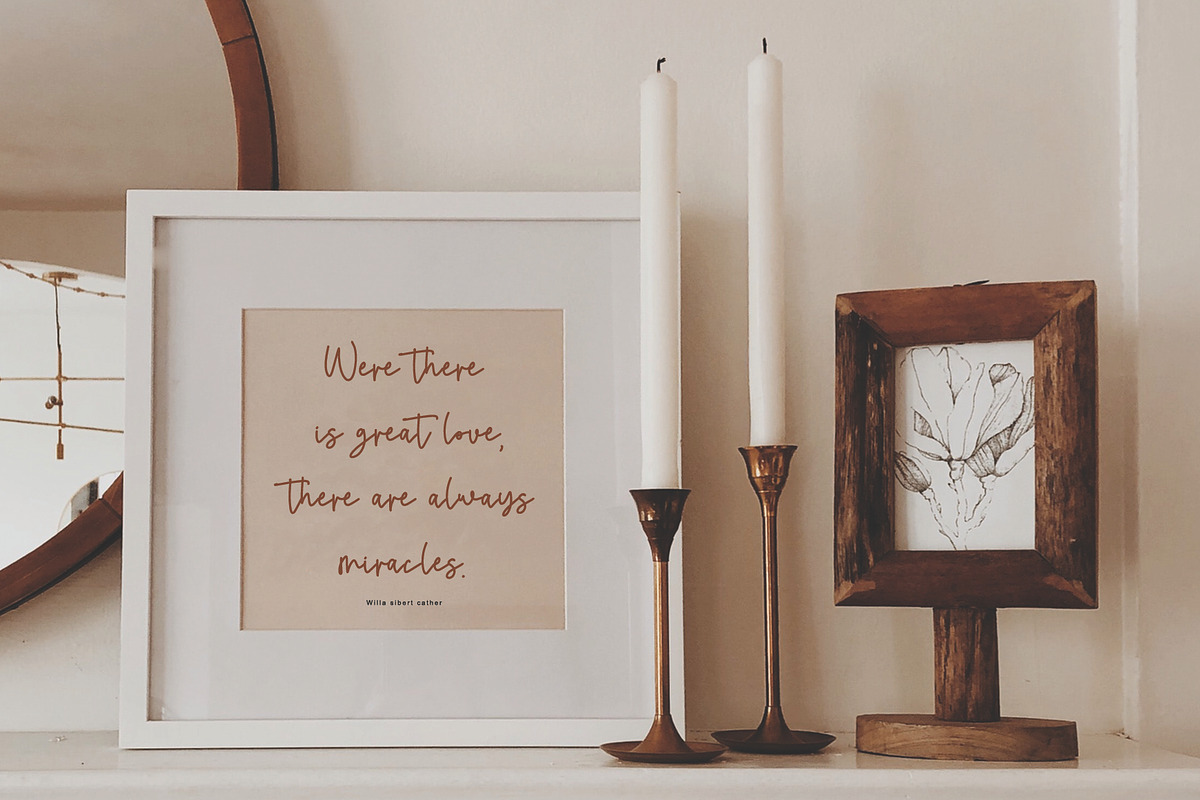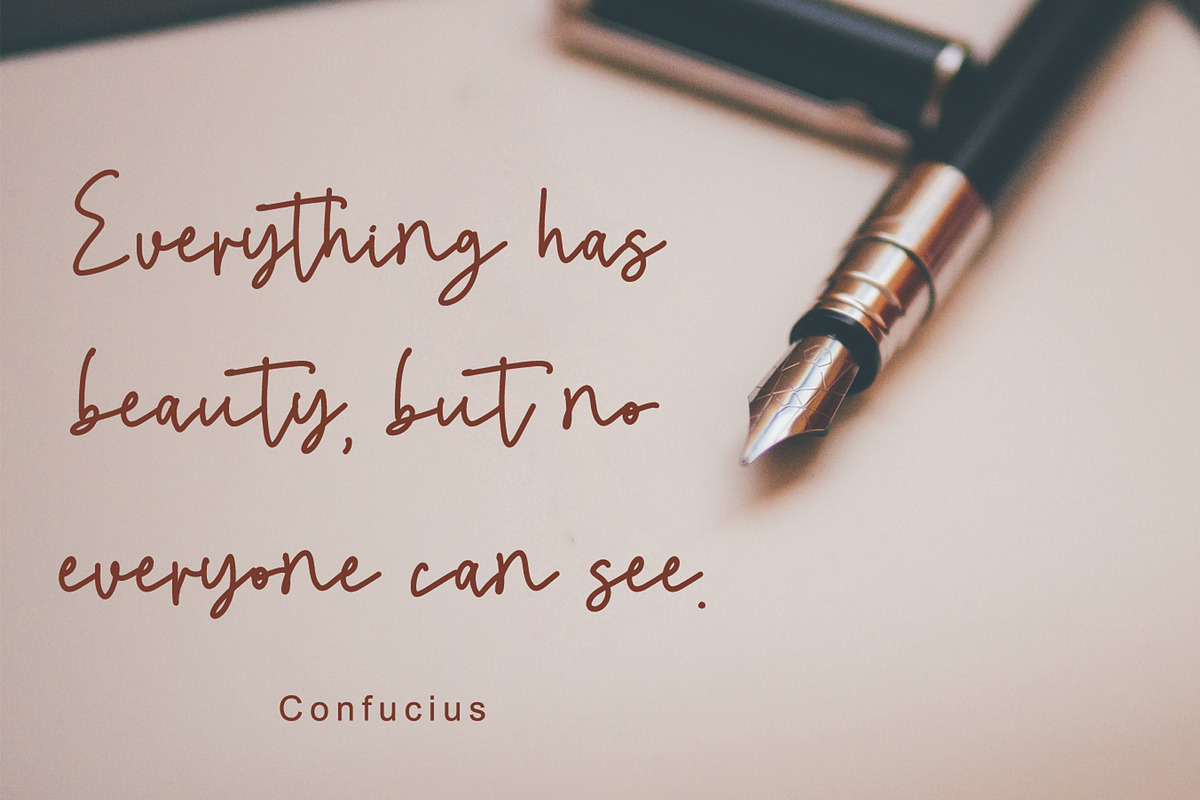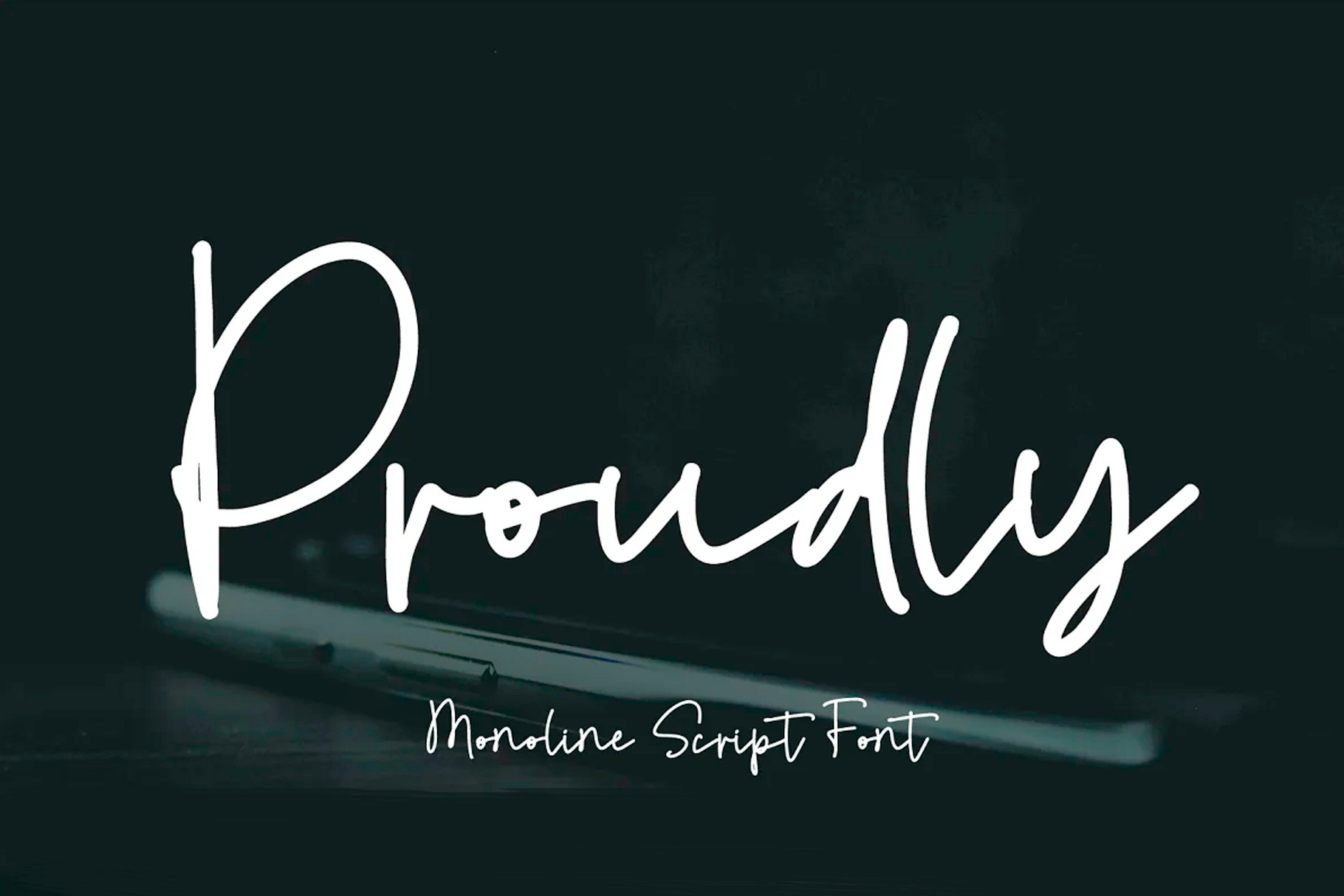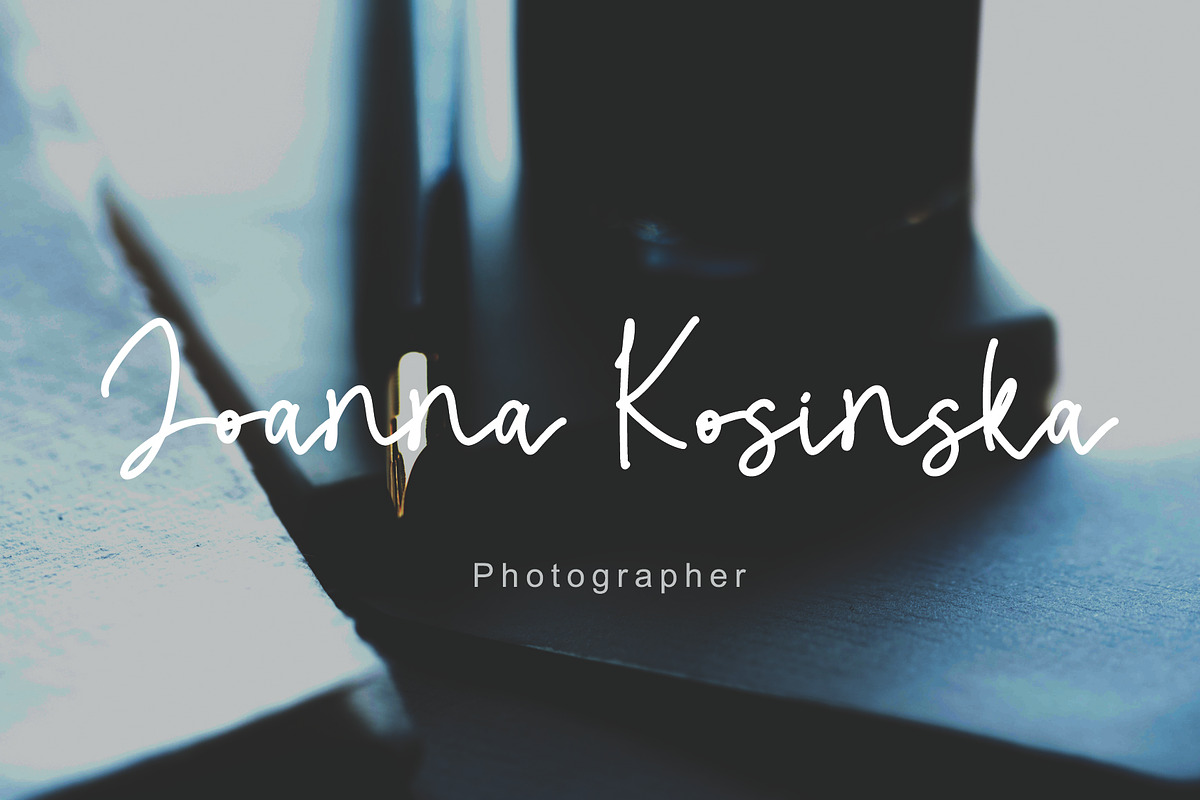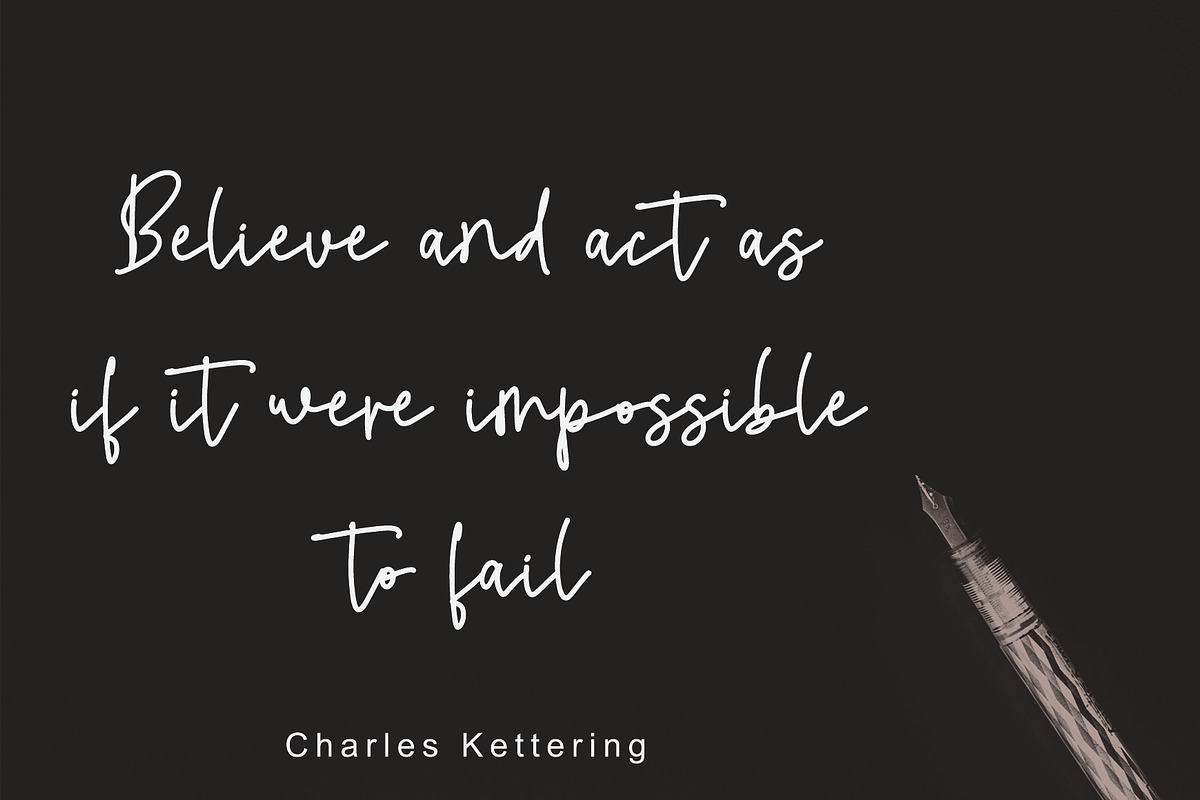
Proudly // Script Font
Proudly is a casual, asymmetrical and adaptable script font. It is the best choice for creating eye catching logos, branding, wedding invitation, promotion, product packaging, quote, social media, websites, blogs, magazines, instagram, business cards and more! Every letter has a unique and beautiful touch, which will make your design come alive!